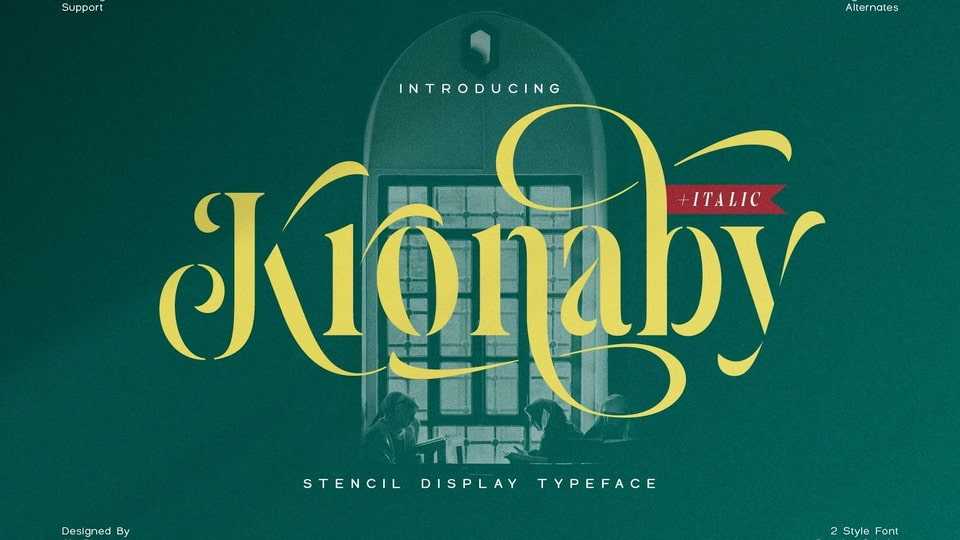
Download Kronaby font, an elegant and attractive stencil typeface for a modern design, combined with a subtle swash. So the Kronaby font is very worthy of being a font collection for projects with a unique and charming elegant concept.